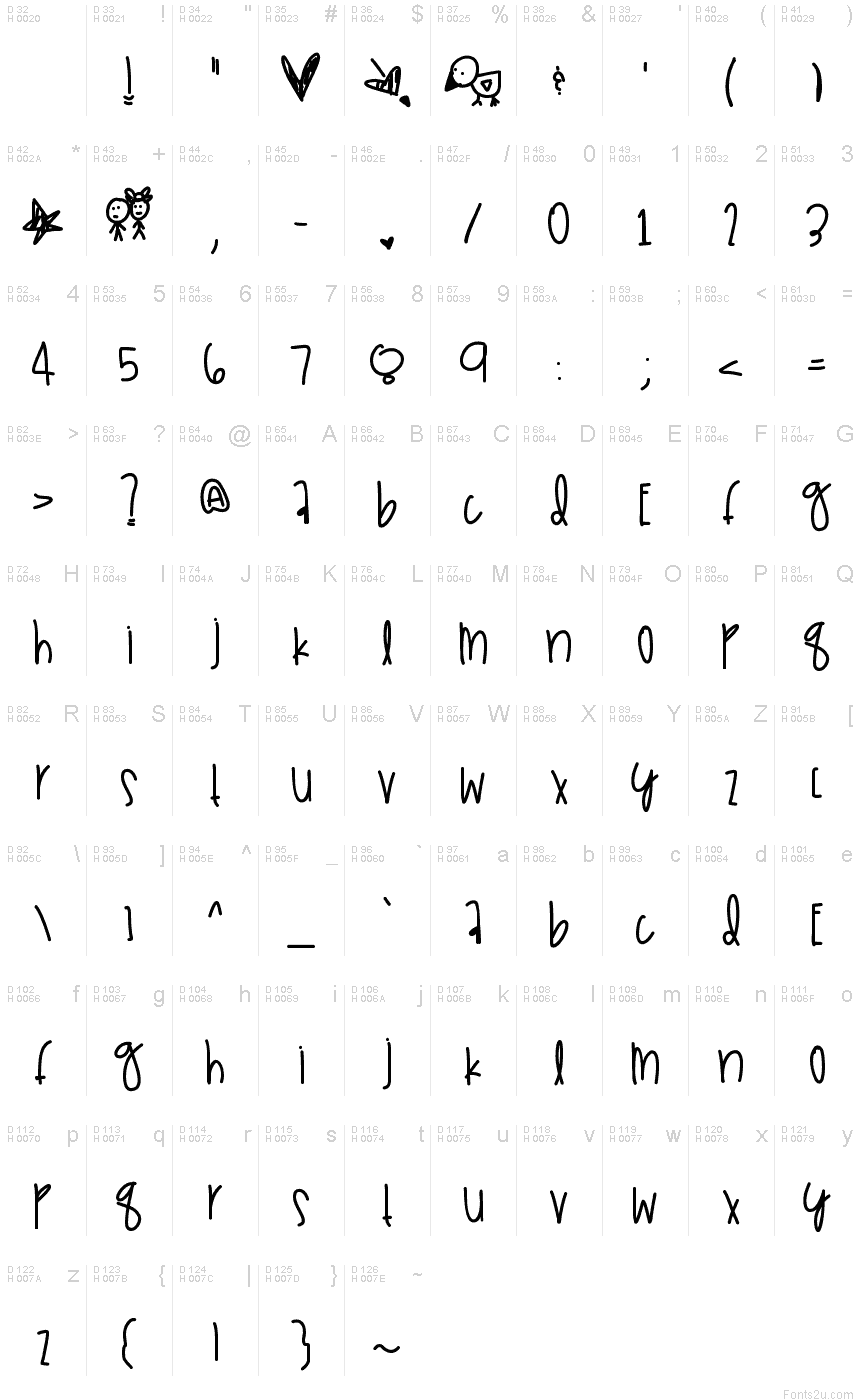
Gamma Jays is a free handwritten font with towering, narrow letters and a loose monoline stroke. Uneven heights, open loops, and abrupt joins give the writing the quick, slightly unruly look of notes made with a felt-tip pen.
Youth culture and homemade graphics are the clearest setting for this lettering. It can give music posters and independent fashion branding the directness of a hand-marked sign, and its tall silhouette also suits informal event invitations. Across those uses, the lanky proportions and changing baseline turn ordinary wording into an active part of the handmade graphic style.